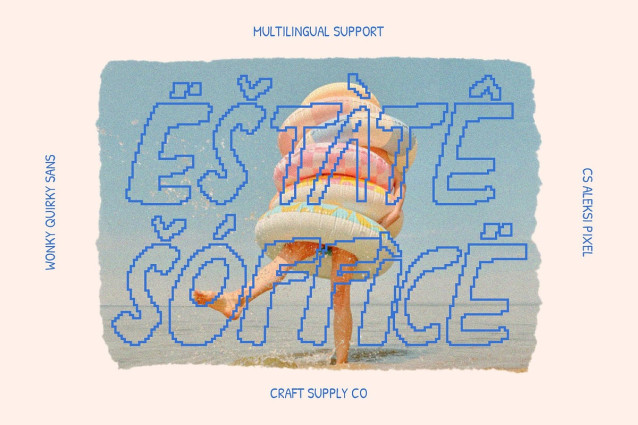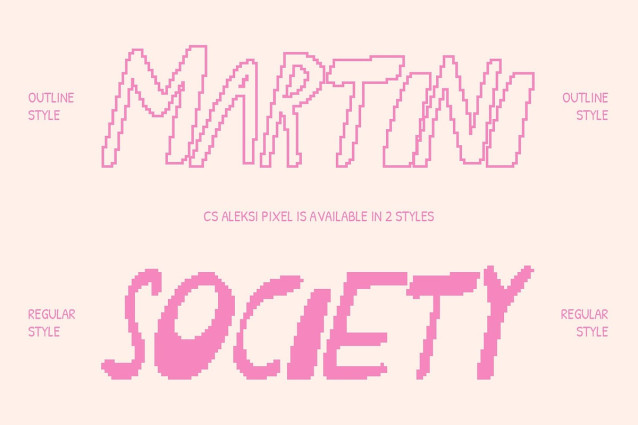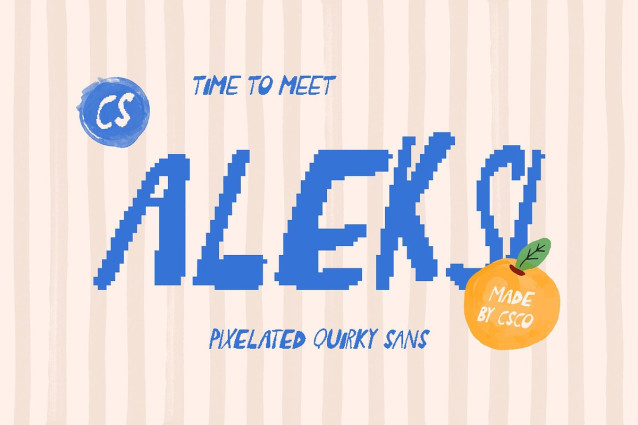
CS Aleksi Pixel Font
CS Aleksi Pixel Font – This is a display font designed to radiate cheerfulness and fun. Its quirky letterforms feature unusual contrasts and irregular shapes that immediately capture attention. Every character carries a bold personality, making this font ideal for projects that want to highlight creativity and individuality.
Pixel Style for Added Texture What sets this font apart is its pixel-inspired styling. The blocky, textured edges give it a digital and nostalgic quality, reminiscent of retro arcade aesthetics. This pixelated touch introduces a fresh layer of expression, ensuring your text not only communicates but also entertains.
Balancing Quirkiness with Versatility Despite its unconventional shapes, This is designed with usability in mind. It balances playful energy with clarity, ensuring your message remains readable while standing out. This combination makes it suitable for both experimental designs and more polished, professional layouts that need a creative spark.
Ideal for Playful Branding and Design Perfect for posters, logos, editorials, and creative branding, thrives in projects where personality matters. Its textured style and lively spirit make it a versatile tool for designers who want to break away from the ordinary and embrace something bold, quirky, and full of character.